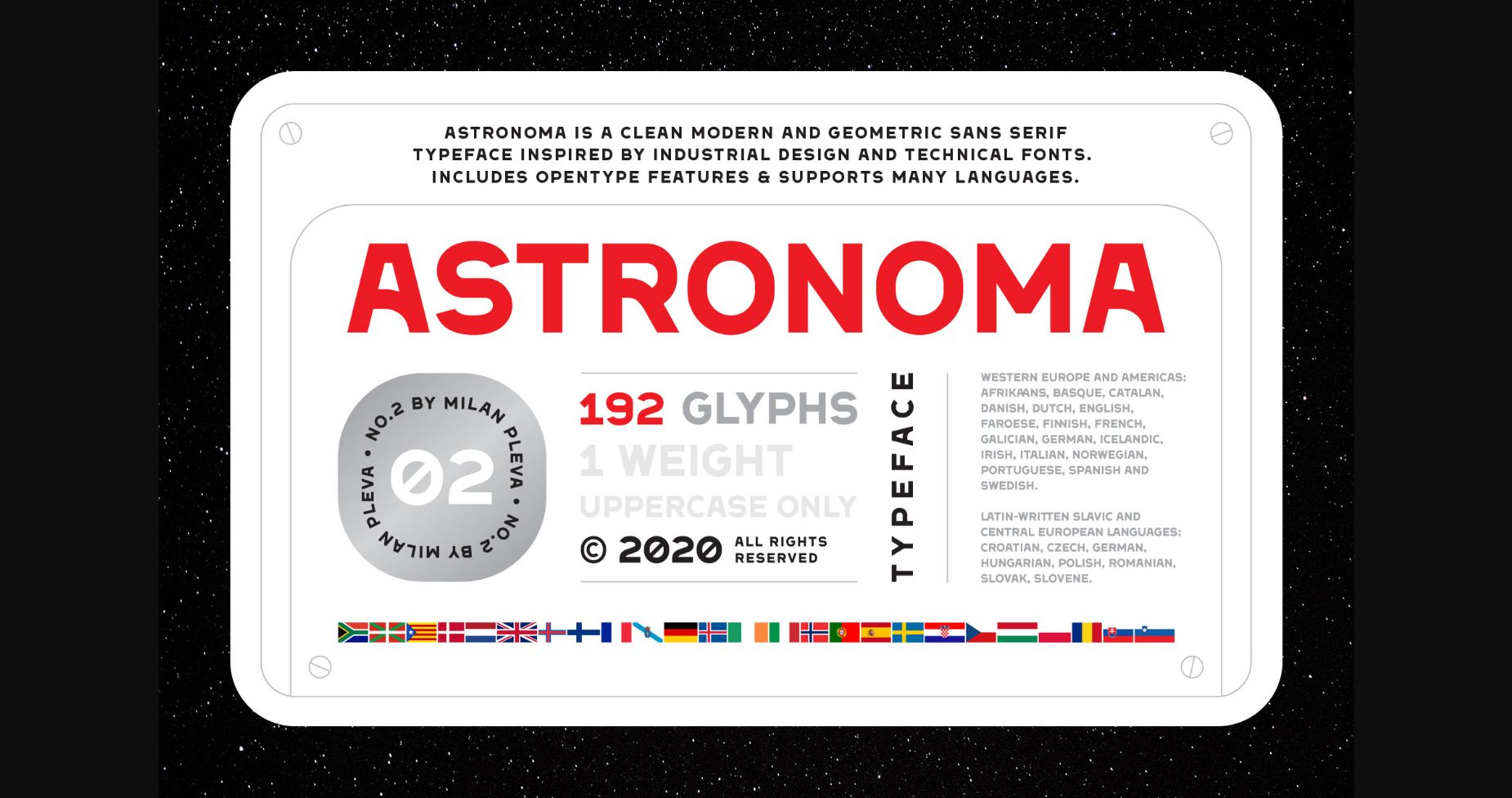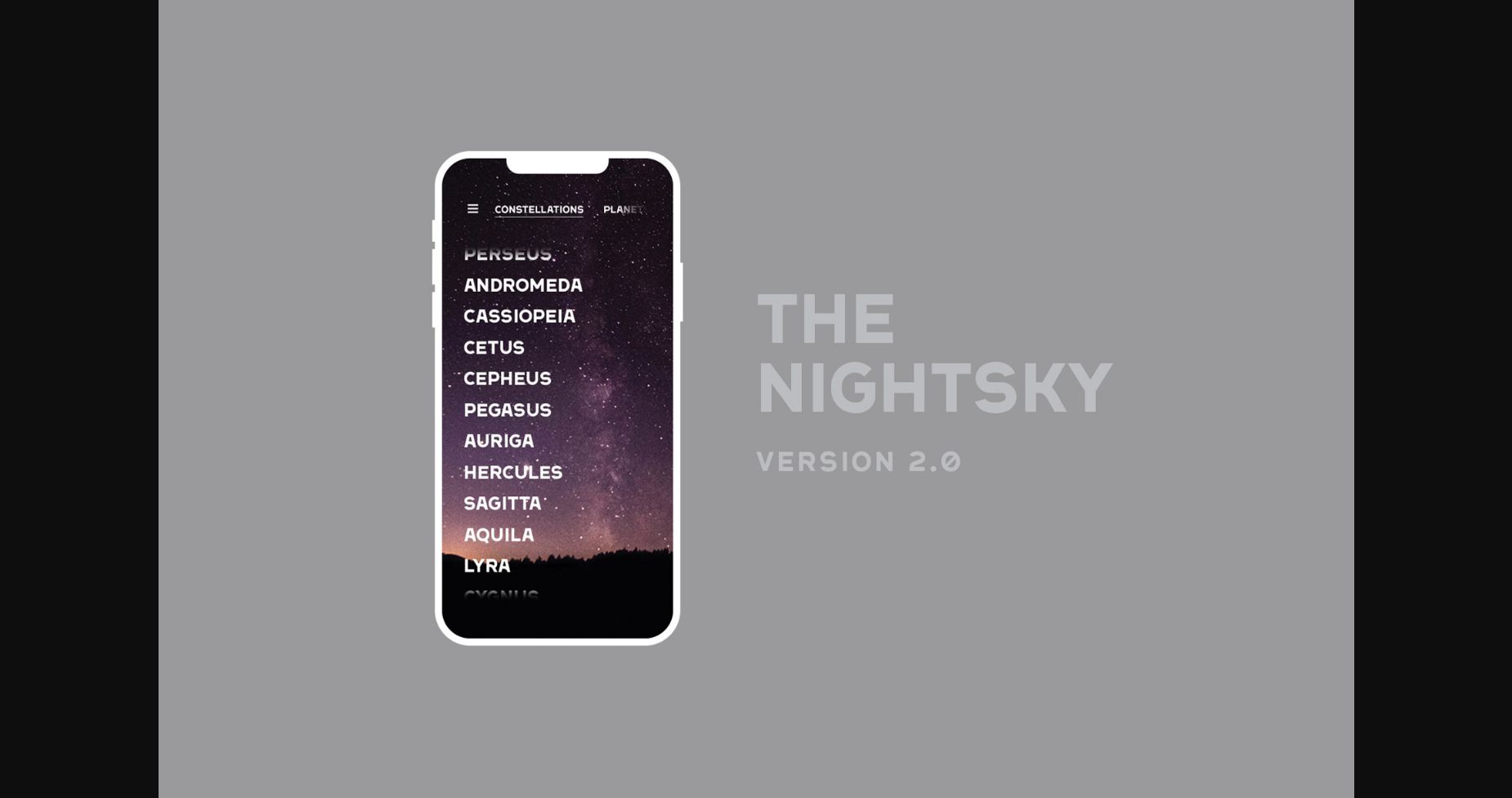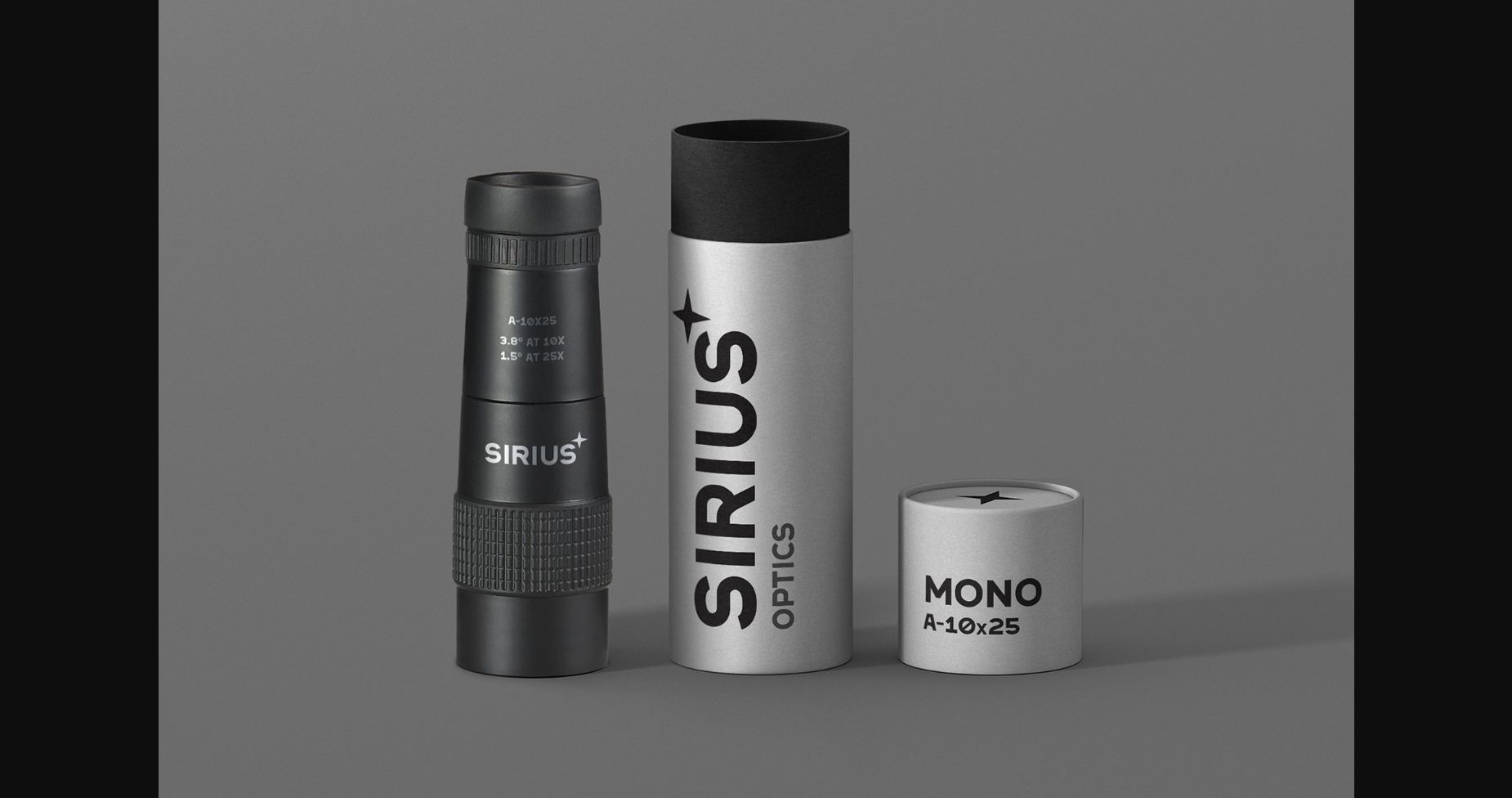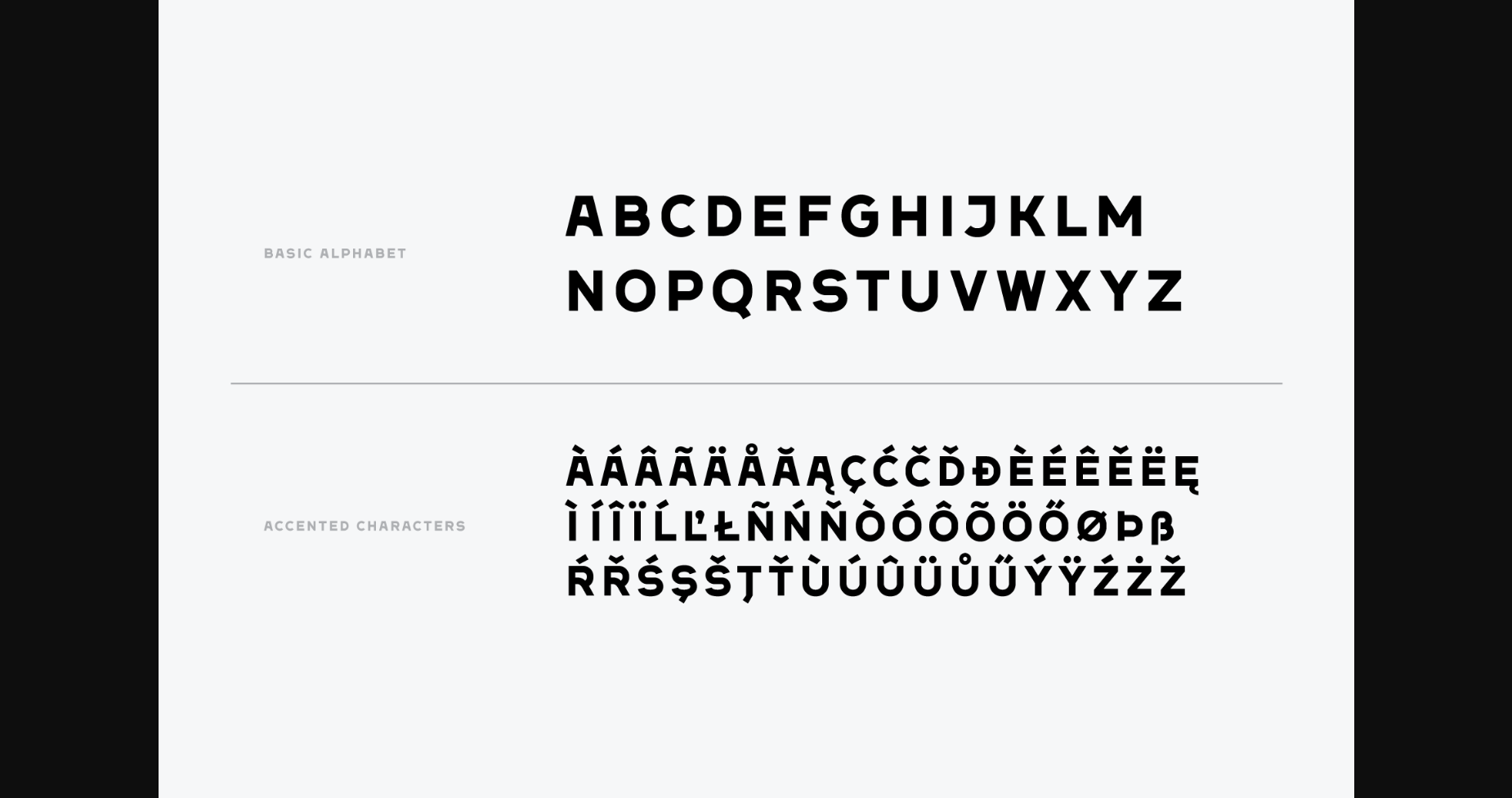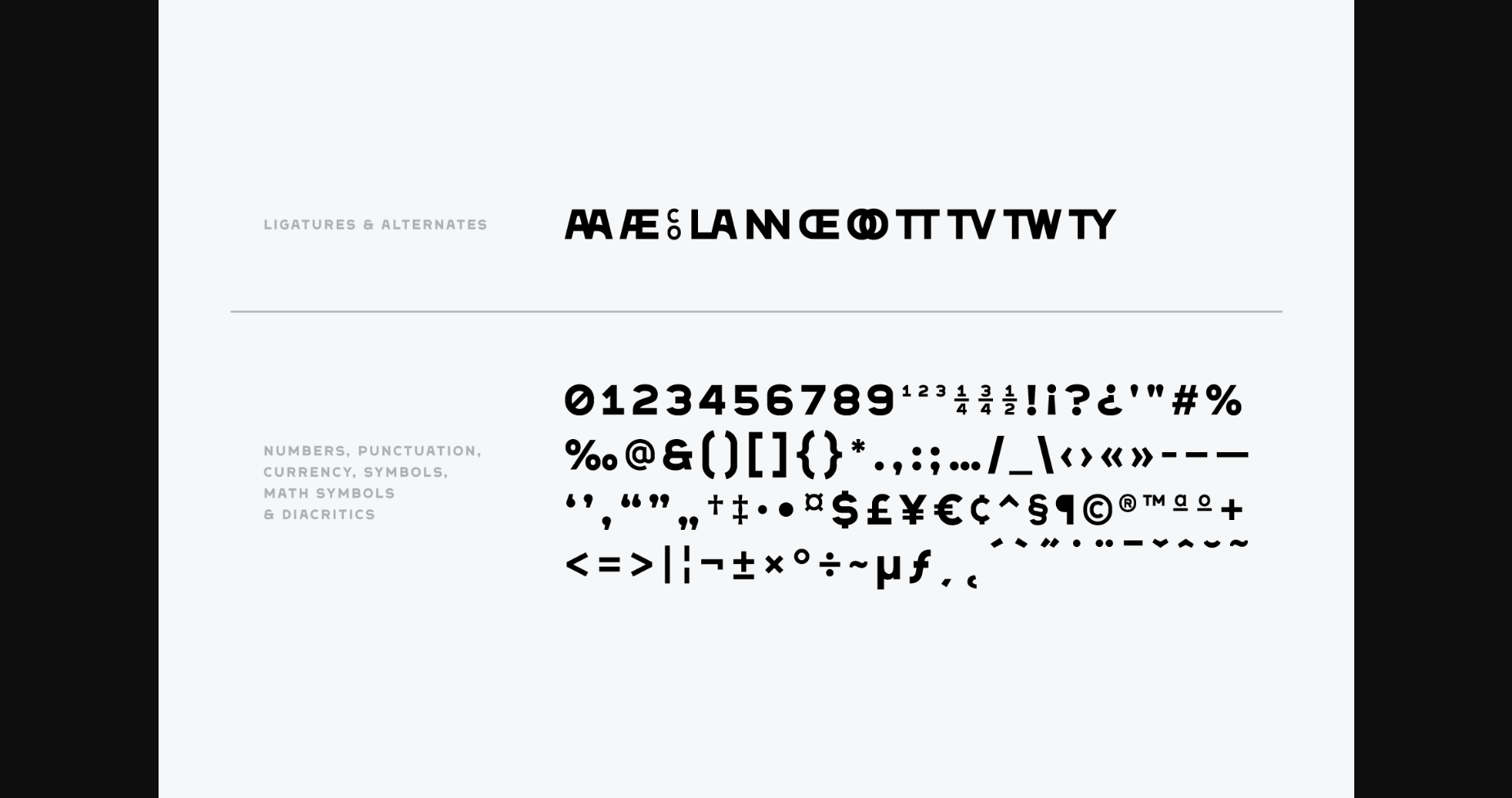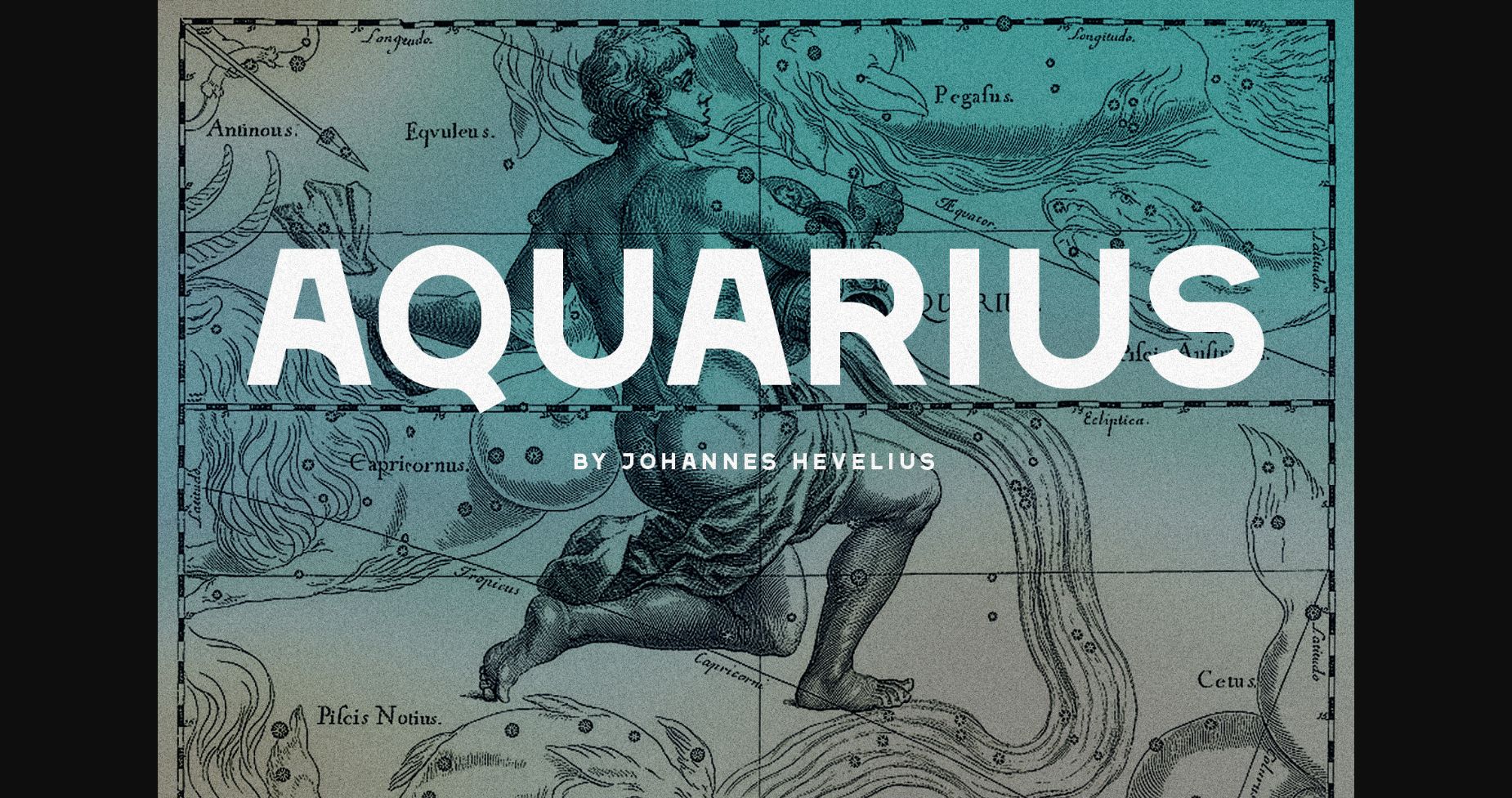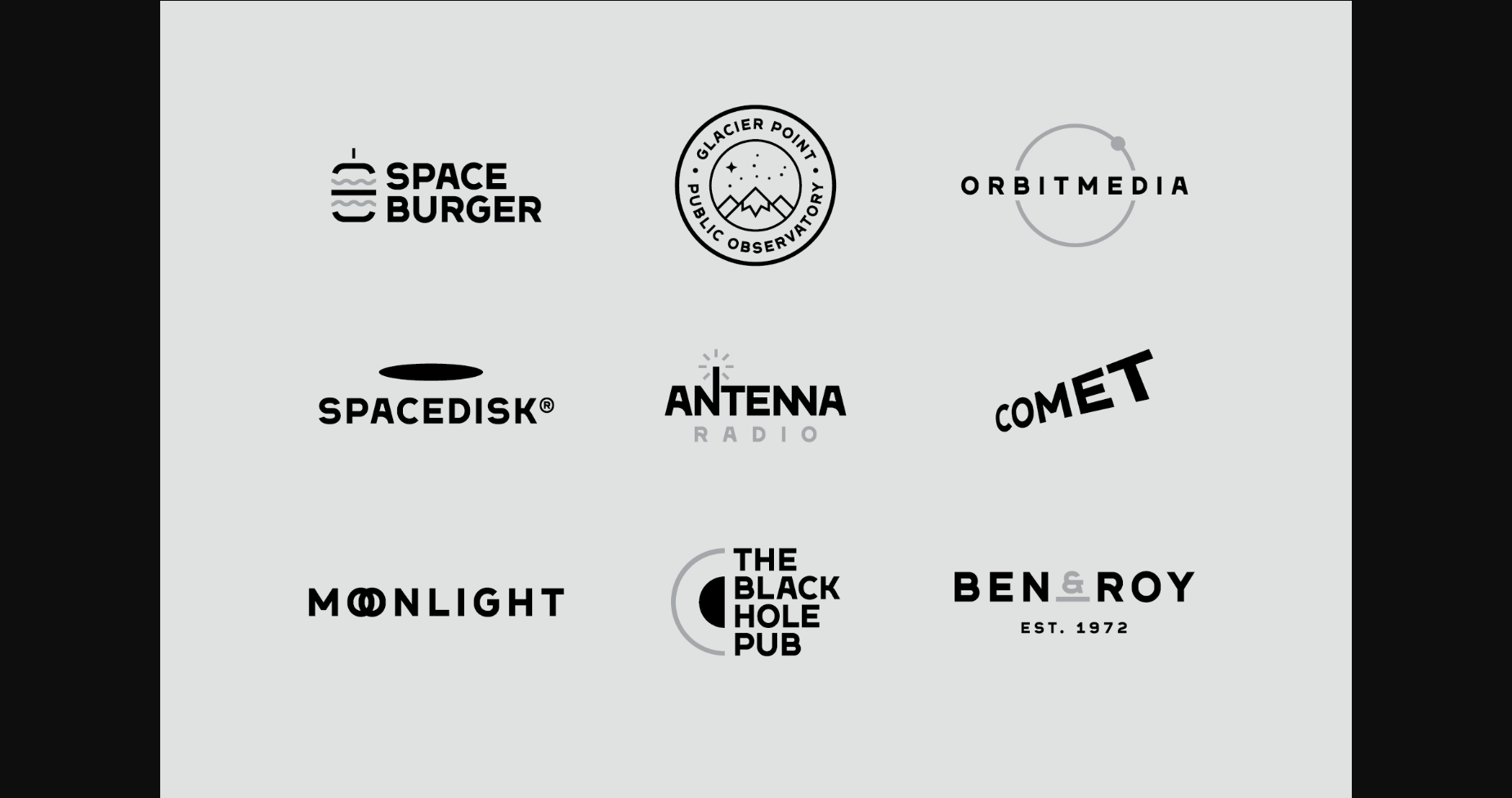
Astronoma Font
About Astronoma Font
Astronoma is a clean, modern, and geometric sans serif font inspired by industrial design and technical fonts. Astronoma is ideal for headlines, headers, logos, labels, packaging, presentations, magazines, invitations, etc.